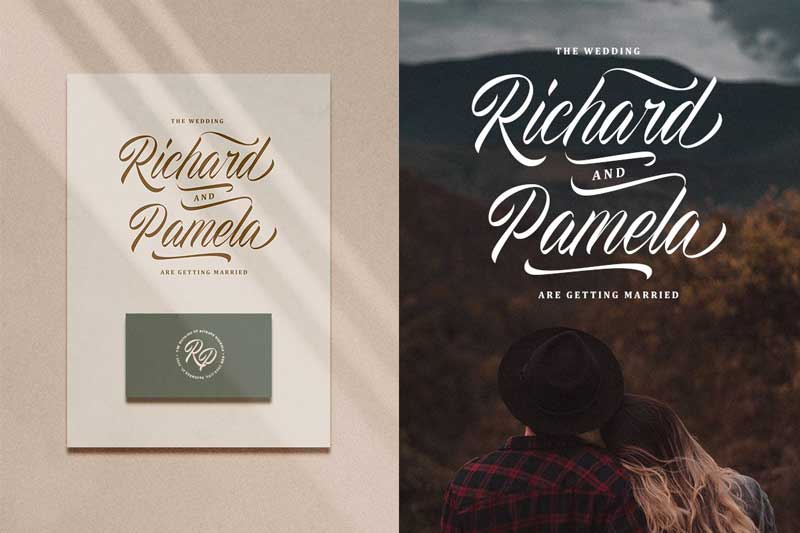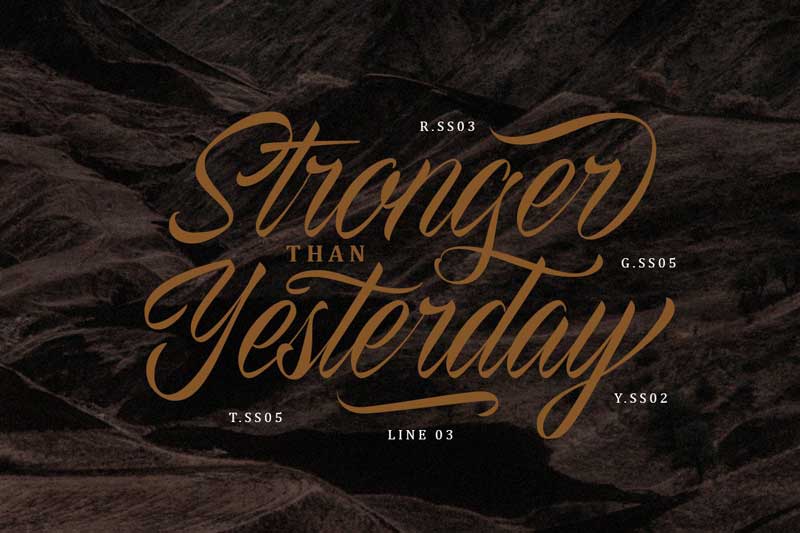
The Proactive Script Font 4689317
Introducing The Proactive Script Font 4689317. The Proactive – Not just another script typeface. In fact, it’s a one of a kind script typeface! What makes it special is this typeface was made from the original handwriting and transformed into a font. So you don’t have to be an expert to be a hand lettering artist, you can just use this font and voila you can create your own brush calligraphy! Play around with the swashes and stylistic alternates to make this font, even more, stands out!
Very suitable to be used as a headline, Instagram post, and stories, logos, magazines, books, greeting/wedding cards, packaging, fashion, makeup, stationery, novels, labels or any type of advertising purpose.
Features :
• uppercase & lowercase
• numbers and punctuation
• multilingual
• ligatures
• alternates
• swashes